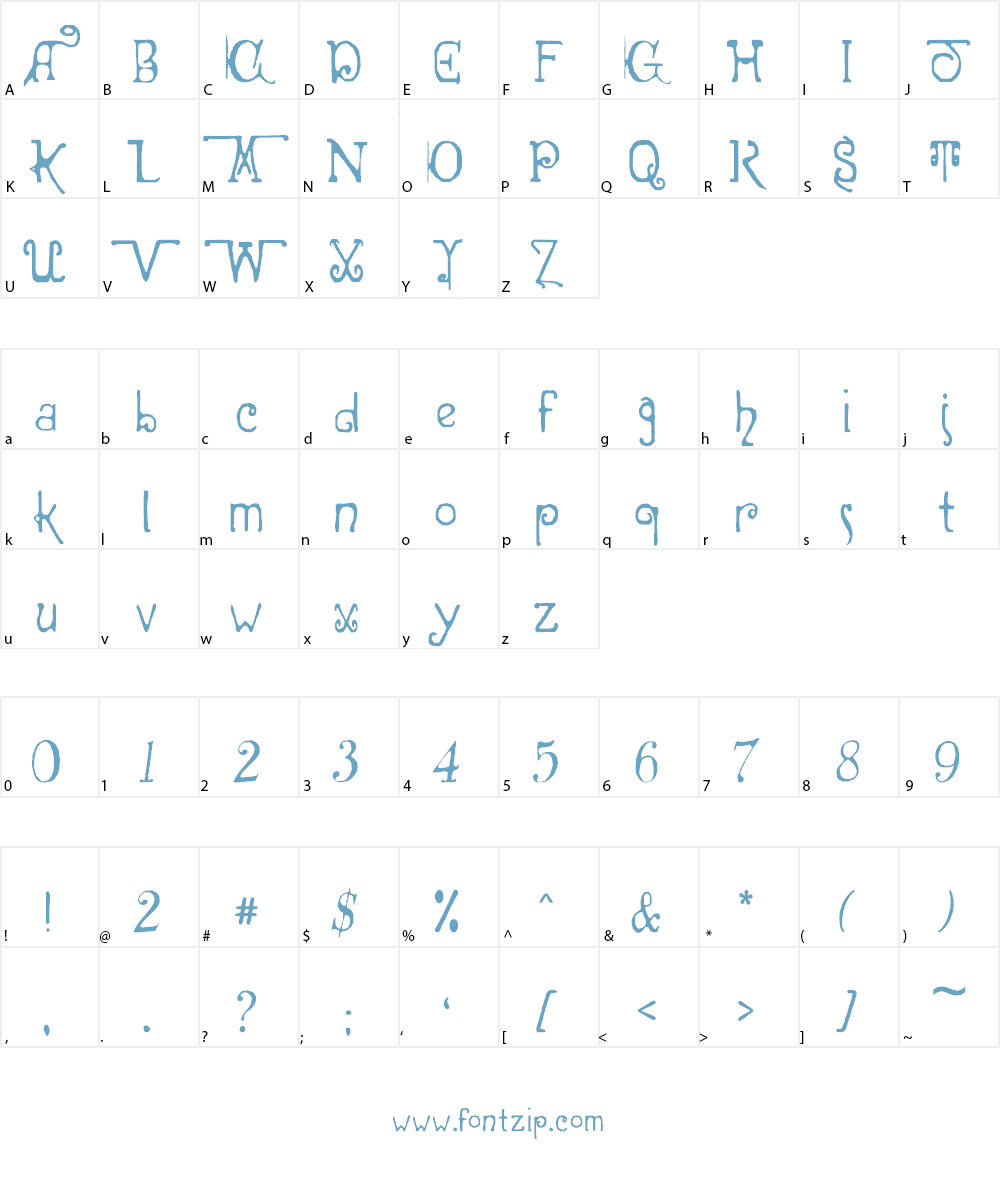
Inspired by vintage book typeface, I have named this font Old Gorgeous. It has bars and curls in the capitals and the lower case letters are of varying size to give it that old type setting look. Great for ornate font art.